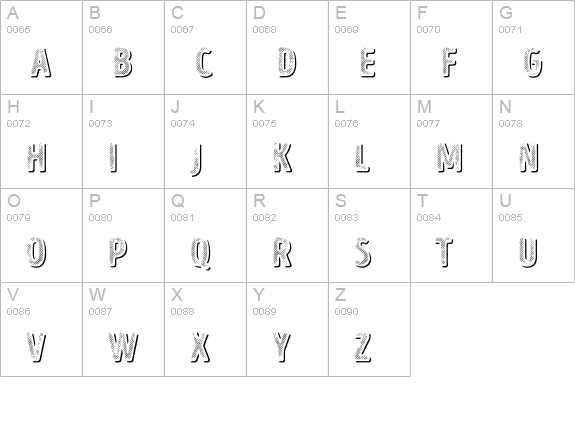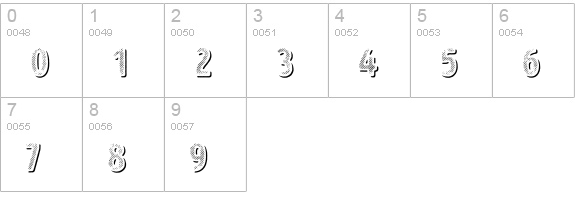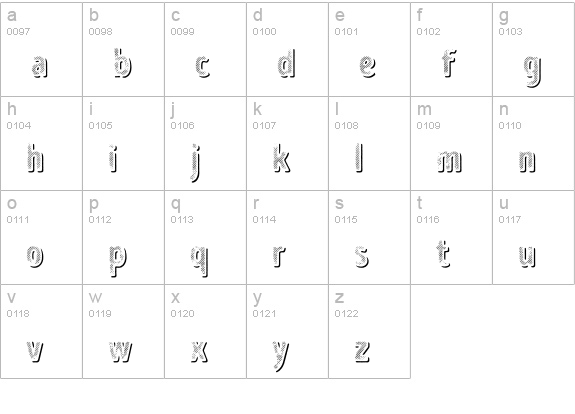
Intro Head H L Shade Font Details
Intro Head H L Shade font is a modern and stylish typeface that exudes sophistication and elegance. Its bold and eye-catching design makes it perfect for headlines, titles, and other prominent text. The unique shading effect adds depth and dimension to the characters, making them stand out on any project. This versatile font is ideal for various design purposes, from posters and banners to branding and packaging. Its sleek and contemporary look will surely attract attention and leave a lasting impression on your audience. Best of all, Intro Head H L Shade font is available for free download at FontsMarket.com. So, you can easily add this stunning typeface to your collection without any cost. Don't miss out on this amazing opportunity to elevate your designs with this exceptional font.